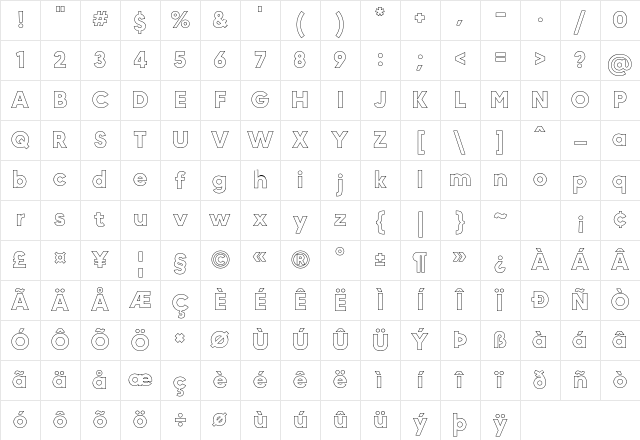
Complete MADE Okine Sans PERSONAL USE Outline Bold glyph index. Displaying only characters natively supported by MADE Okine Sans PERSONAL USE Outline Bold font.
MADE Okine Sans PERSONAL USE Outline is built around its visual character rather than neutral utility - its distinctive forms are designed to make an impression at display sizes. Its bold stroke weight gives it real presence on the page.